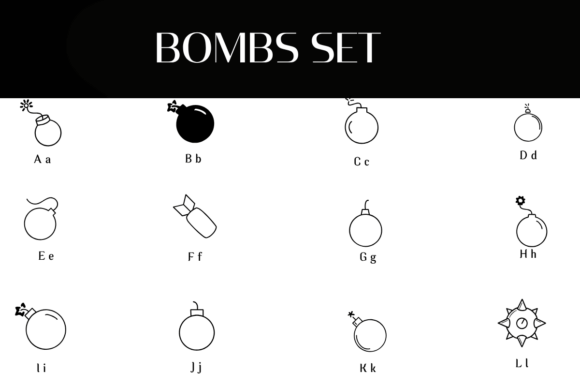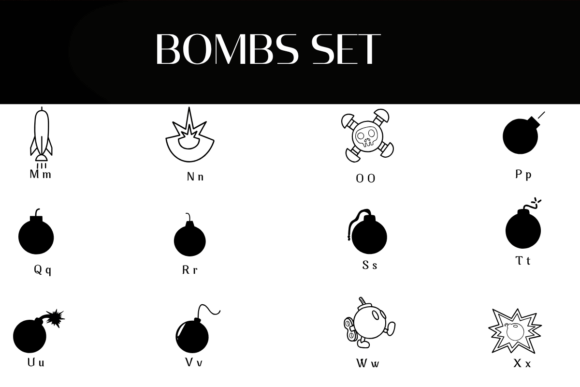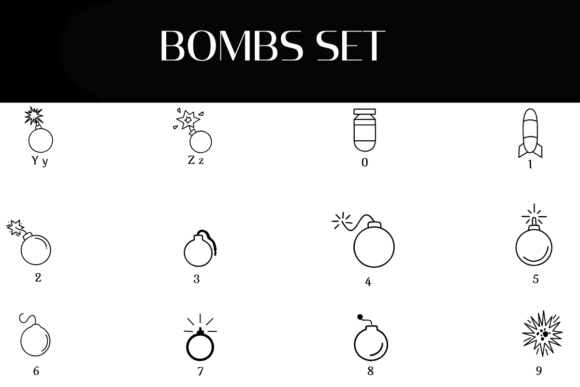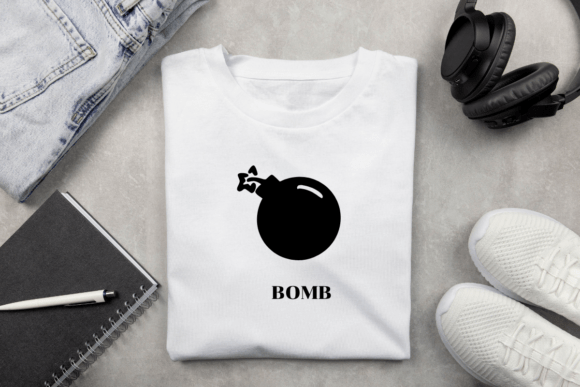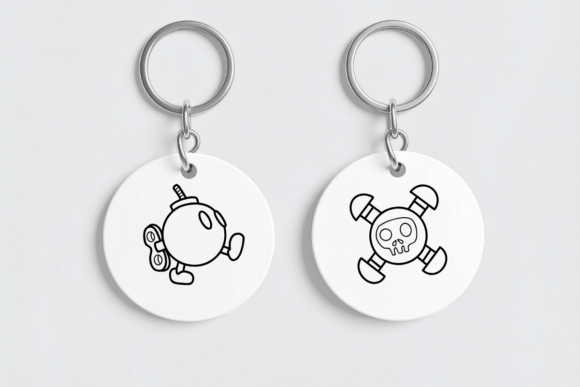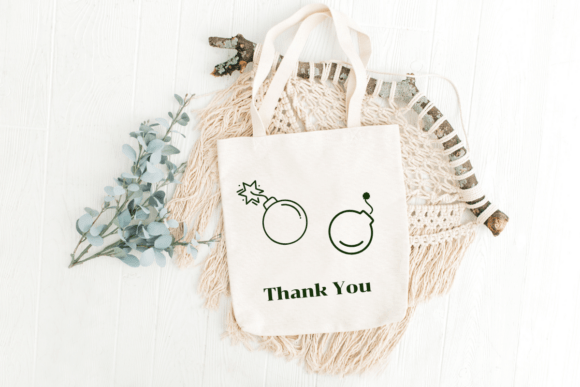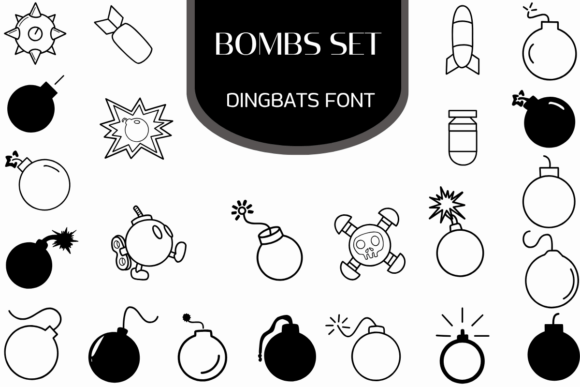
Ignite Your Design Projects with the Bombs Set Font
Are you looking for a typeface that packs a punch? Look no further than the Bombs Set Font, an explosive dingbat typeface that captures the essence of a “dynamic-and-dangerous” soul. This collection of hand-drawn icons is perfect for designers and crafters who want to add a bold and edgy touch to their projects.
What is the Bombs Set Font?
The Bombs Set Font is a unique and high-impact array of “explosive-and-artillery” icons, featuring a range of classic and modern designs. From round fuses and lit tinderboxes to naval mines, rockets, and skull-and-crossbones canisters, this font has everything you need to create bold and eye-catching designs. Each glyph is carefully crafted with rhythmic, clean line-art silhouettes and bold solid fills, bridging the gap between retro comic book action and modern street-culture branding.
Key Features of the Bombs Set Font
- Hand-drawn design: Each glyph is uniquely designed with a focus on clean lines and bold fills, giving the font a distinctive and edgy look.
- High-energy aesthetic: The Bombs Set Font is perfect for designs that require a high level of energy and dynamism, such as extreme sports identities, gaming interfaces, and urban apparel graphics.
- Defiant personality: This font is not for the faint of heart. It’s perfect for designers who want to create bold and daring designs that make a statement.
- Versatile: The Bombs Set Font can be used for a wide range of design projects, from social media content to branding and advertising.
Use Cases for the Bombs Set Font
The Bombs Set Font is perfect for a variety of design projects, including:
- Independent extreme sports identities: Create bold and eye-catching logos and branding for extreme sports teams and events.
- Edgy gaming interfaces: Add a touch of danger and excitement to your gaming interfaces with this unique font.
- Urban apparel graphics: Create bold and daring designs for urban apparel brands, including t-shirts, hats, and more.
- High-impact social media content: Use the Bombs Set Font to create bold and eye-catching social media content that grabs attention and makes a statement.
Why Choose the Bombs Set Font?
With so many fonts available, why choose the Bombs Set Font? Here are just a few reasons:
- Unique design: The Bombs Set Font is unlike any other font on the market. Its unique design and bold aesthetic make it perfect for designers who want to stand out.
- High-quality: Each glyph is carefully crafted with attention to detail, ensuring a high-quality font that will elevate your designs.
If you’re looking for a font that packs a punch, look no further than the Bombs Set Font. With its unique design, high-energy aesthetic, and defiant personality, this font is perfect for designers and crafters who want to create bold and eye-catching designs. Whether you’re working on an extreme sports identity, edgy gaming interface, urban apparel graphic, or high-impact social media content, the Bombs Set Font is the premier choice.